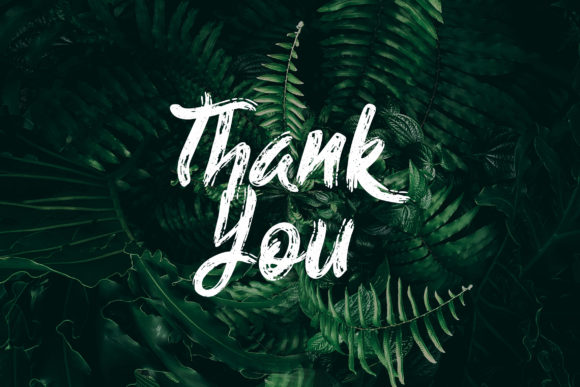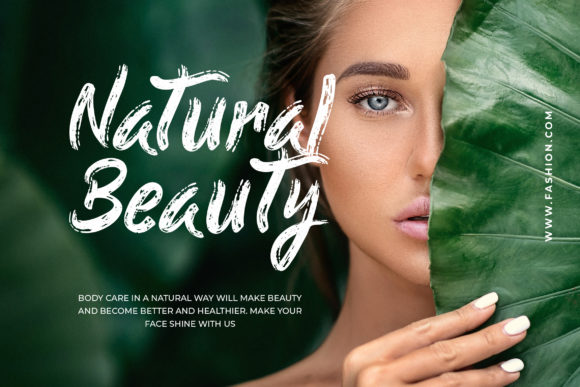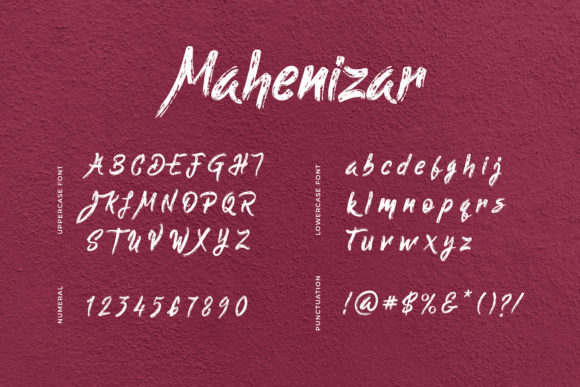
Introduction to Mahenizar Font
Remember the moment when you finally found the perfect font to elevate your creative project? It’s that instant rush of excitement and satisfaction that comes with knowing you’ve stumbled upon a game-changing design resource. For designers, discovering a high-quality font can be a make-or-break moment, and that’s exactly what we’re excited to share with you today – the Mahenizar Font.
This cool and brushed handwritten font is more than just a pretty face; it’s a versatile tool that can add a touch of personality to any design. With its original look and feel, Mahenizar Font is perfect for letterheads, titles, and stationery, making it an invaluable asset for any designer looking to add a creative twist to their work.
Key Features of Mahenizar Font
- Unique, modern design style suitable for a wide range of creative projects
- Supports various languages, making it a versatile design resource
Honest Review: Mahenizar Font
I recently came across the Mahenizar Font, and I must say it’s a great addition to any design resource collection. As a designer, I’m always on the lookout for high-quality fonts that can elevate my creative projects. The Mahenizar Font definitely delivers.
Here are some things that work well with the Mahenizar Font:
- Its modern and sleek design makes it perfect for any contemporary project.
- The font is highly versatile and can be used for a variety of purposes, from headings to body text.
- The transparent background option allows for seamless integration with any design element.
- The font may not be suitable for projects that require a more traditional or vintage aesthetic.
- The font’s simplicity may make it difficult to read in certain contexts.
Overall, I’m impressed with the Mahenizar Font, and I think it’s a great resource for any designer looking to add some modern flair to their creative project. With a little creativity and experimentation, I’m sure you’ll find a way to make it work for you!
Mahenizar Font is a high-quality, free design resource perfect for creative projects. This versatile font features a transparent background, making it easy to incorporate into various designs.
Tips for Getting the Most Out of Mahenizar Font
To get the most out of Mahenizar Font, use it in conjunction with other design elements, such as graphics and images, to create visually appealing designs.
Mahenizar Font is commonly used in:
- Graphic design projects
- Print materials, such as business cards and brochures
- Web design projects